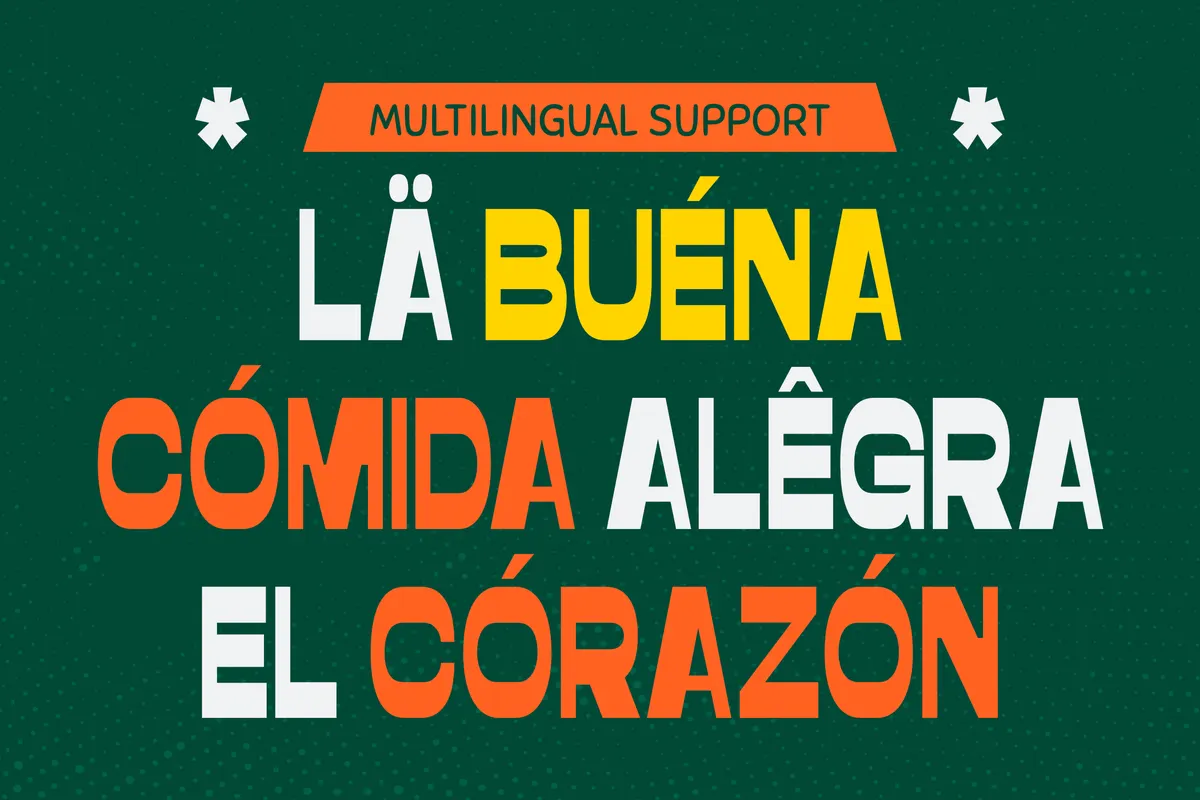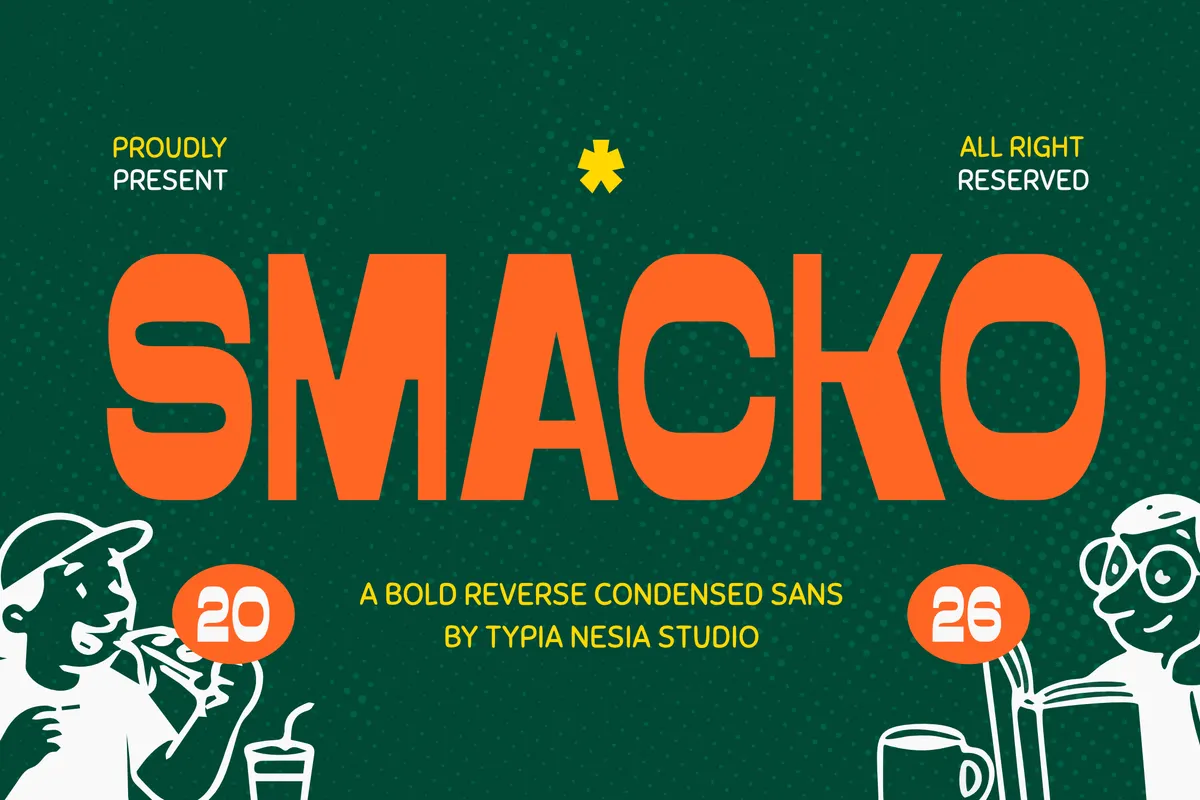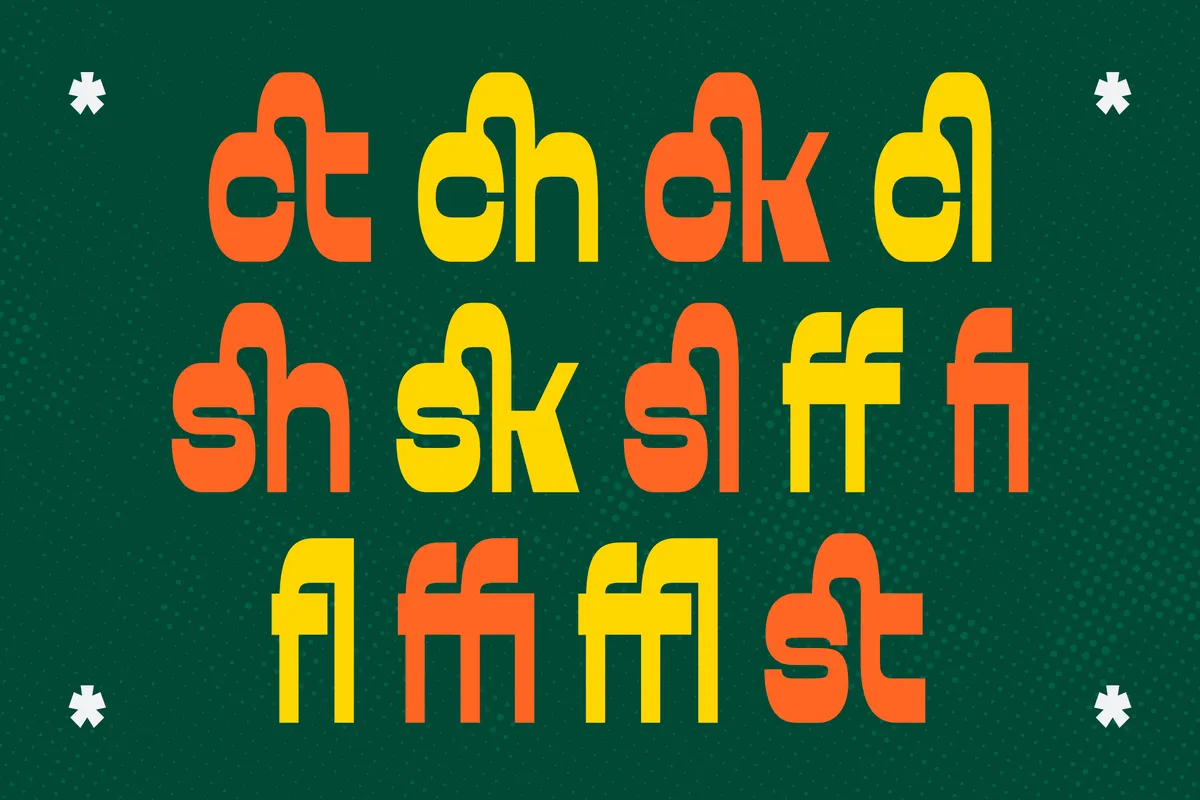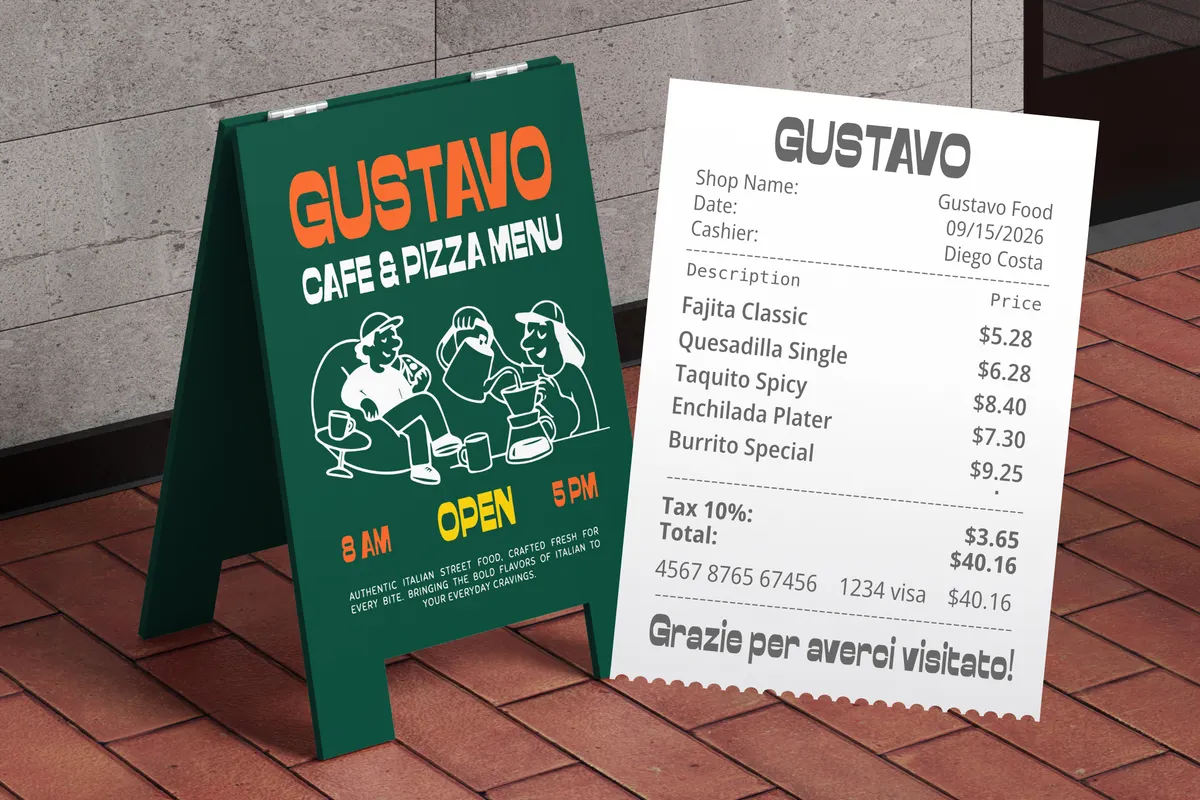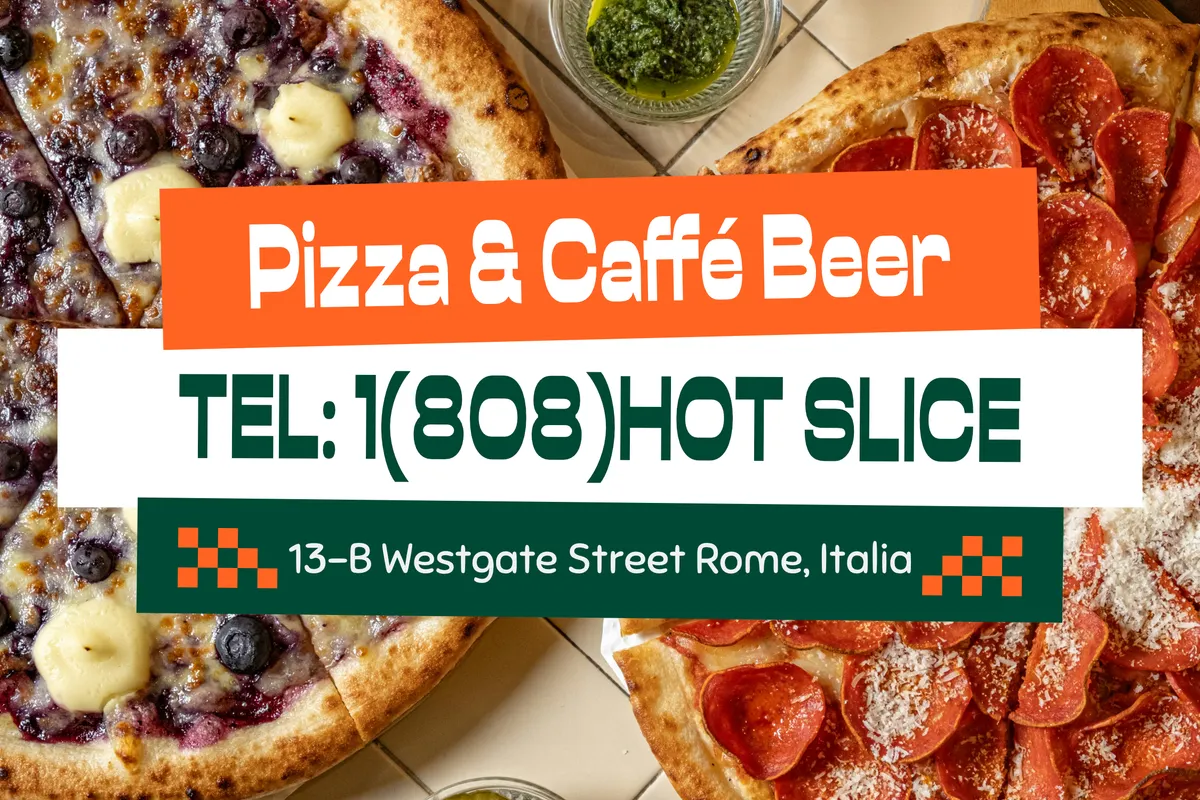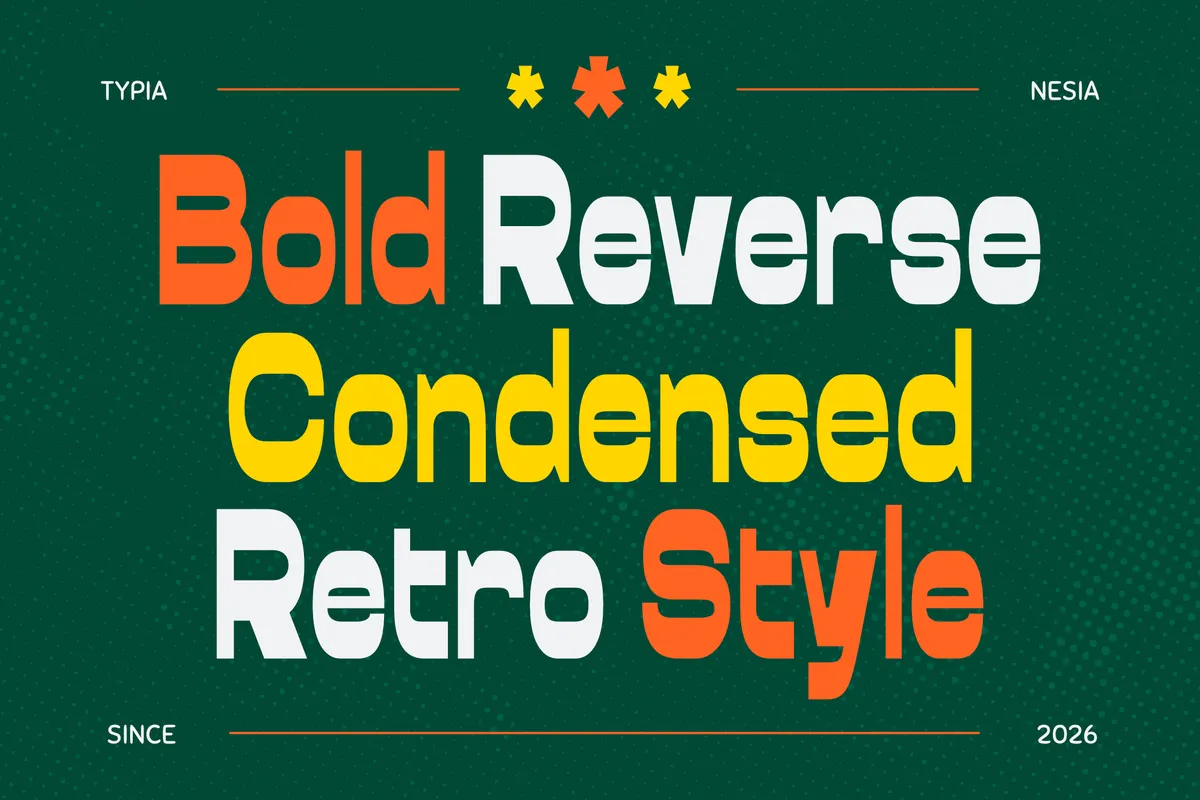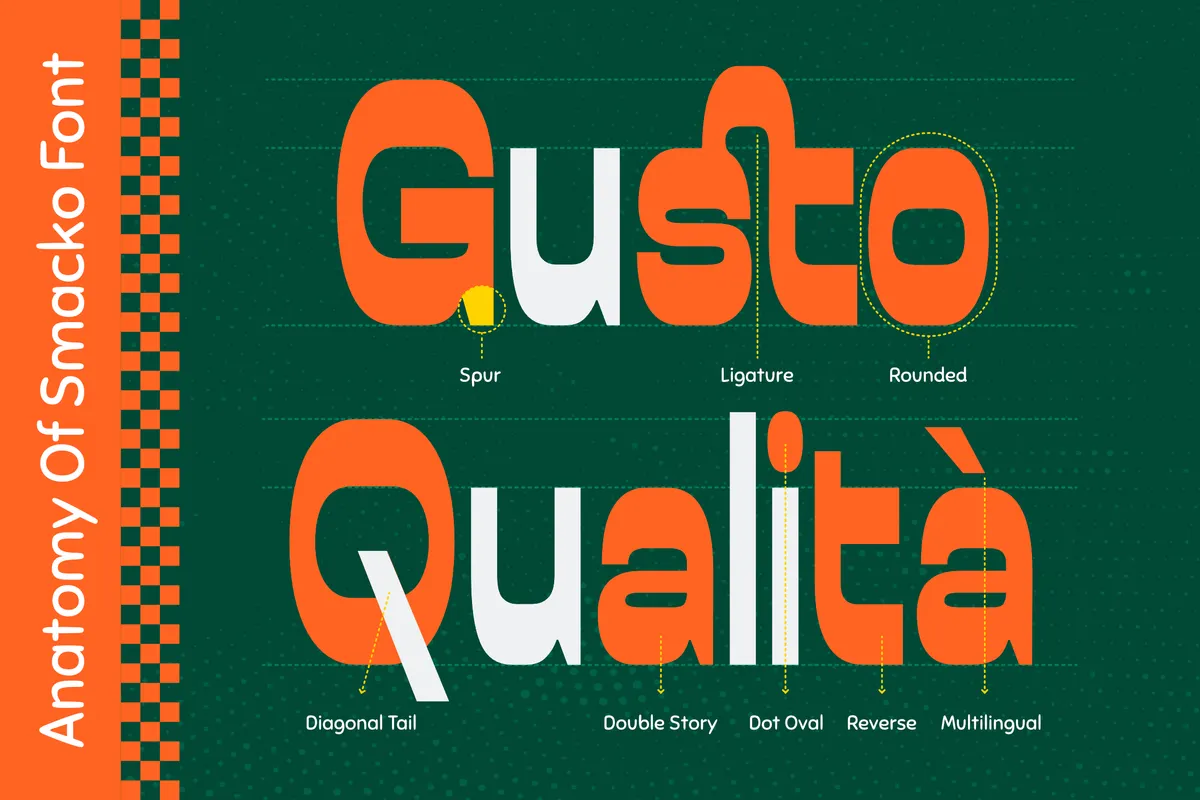
Smacko - Bold Reverse Contrast Sans Font
Smacko
Smacko builds bold, condensed capitals with a reverse-contrast twist. Thin strokes and thick counters swap places compared to a typical sans, giving the geometric shapes their own punchy rhythm. Thirteen ligatures fuse pairs like ct, ch, ck, cl, sh, sk, sl, st, fi, fl, ff, ffi, and ffl into single connected shapes.
Use it for logos, posters, sports branding, food packaging, beverage labels, advertising campaigns, social media graphics, merchandise, and bold editorial headlines.
- 13 discretionary ligatures;